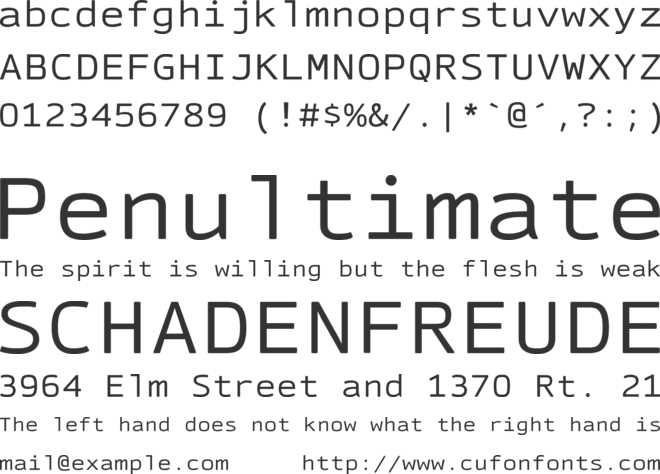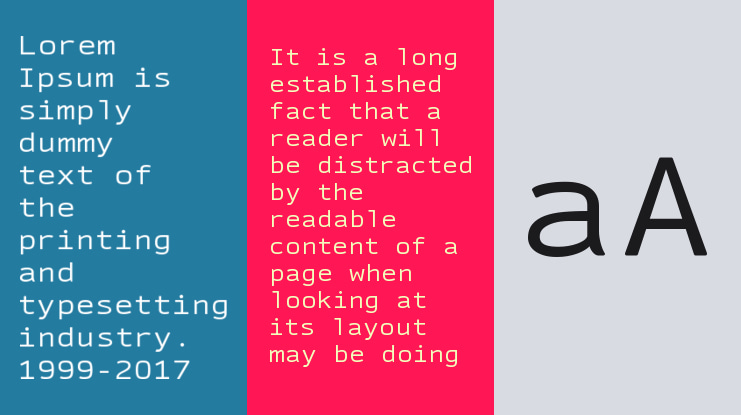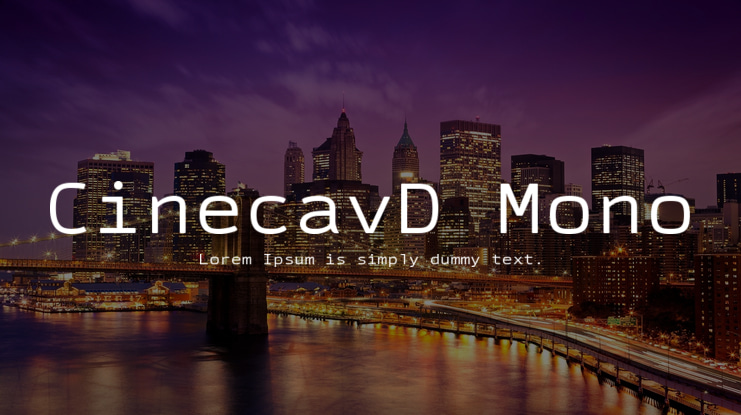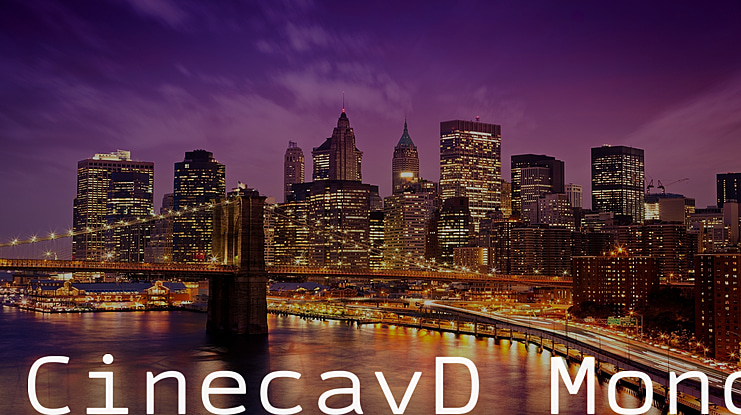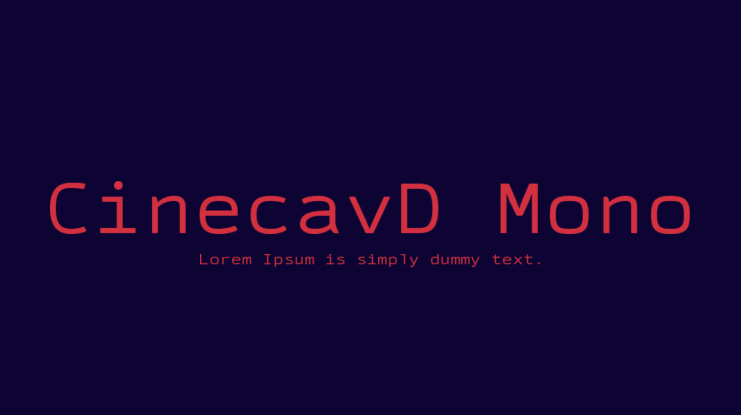
Cinecav Mono is a monospaced sans-serif font that reconciles the proportions of Cinecav UI and popular monospaced fonts such as Letter Gothic*. Special design techniques were employed to optimize legibility and optical harmony against the difficulties that monospacing creates. Please read the designer’s notes below to learn more.
One of the problems font designers have to deal with when designing monospaced fonts is forcing wide letters like M and W into the same space as the rest of the alphabet and narrow letters like I. All monospaced sans-serif fonts deal with the extra space around the letter I by adding serifs and the M and W are “given the squeeze”. Unlike fonts designed for print, Cinecav Mono has the additional challenge of retaining the M and W gaps (see the Cinecav UI description). As you can see, I raised the middle on the M, dropped the middle of the W and made the lines nearly vertical, thereby retaining our M and W gaps and our onscreen clarity. Rather than squeezing the copyright, registered and CC symbols, I chose to superscript them for better clarity.